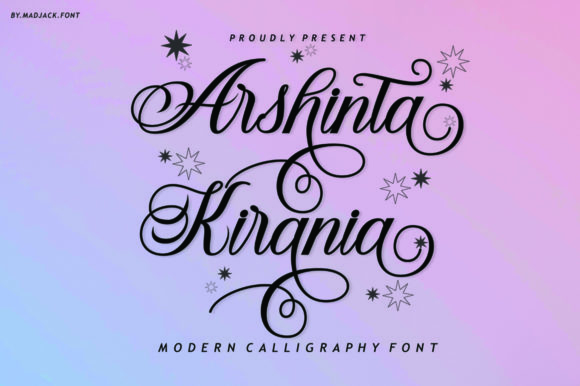
Step into a world of elegance and enchantment with 'Arshinta Kirania,' an exquisite script font that captivates the senses and leaves an indelible mark on your designs. A creation of the visionary mind at madjack.font, 'Arshinta Kirania' is a symphony of romance and creativity, intricately crafted to evoke dreams, delight, and an abundance of life.
With its graceful strokes and balanced proportions, 'Arshinta Kirania' strikes a perfect chord between delicate finesse and captivating boldness. Neither too thin nor too thick, this font is a testament to the artistry of its creator, showcasing a harmonious blend of variation and poise.
Immerse yourself in a world where your words dance with grace and charm, effortlessly capturing the essence of love, joy, and exuberance. 'Arshinta Kirania' is the perfect companion for your creative endeavors, whether you're crafting heartfelt invitations, designing enchanting logos, or adding a touch of magic to your social media posts.
But 'Arshinta Kirania' is more than just a font; it's an experience. With its PUA encoding, you gain effortless access to a treasure trove of glyphs and swashes, inviting you to unlock your imagination and let your creativity soar. Experiment with captivating ligatures, add a touch of whimsy with stunning alternates, and indulge in the boundless possibilities that await.
With 'Arshinta Kirania,' the boundaries of expression melt away, allowing your words to take on a life of their own. Whether you're a seasoned designer or just starting your creative journey, this font will elevate your projects to new heights, transforming them into captivating masterpieces.